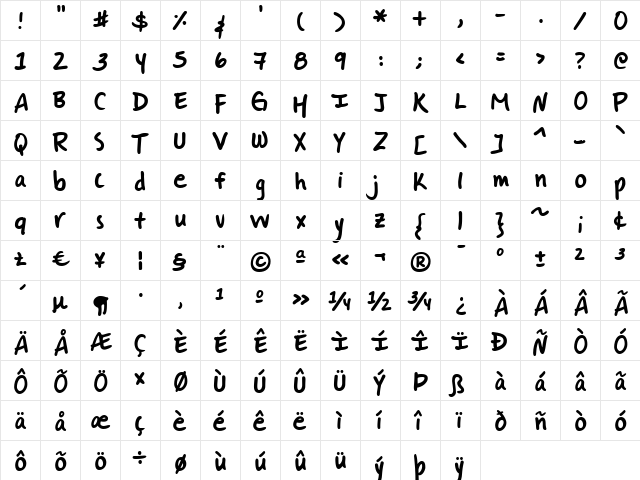
Martie Two Bold
Foundry Canada Type
DesignerMartie & Rebecca
Design Context for Martie Two Typeface
Martie Two is a composed and adaptable typeface that performs quietly and consistently across a wide range of design contexts. The heavy weight commands attention and anchors typographic hierarchies.